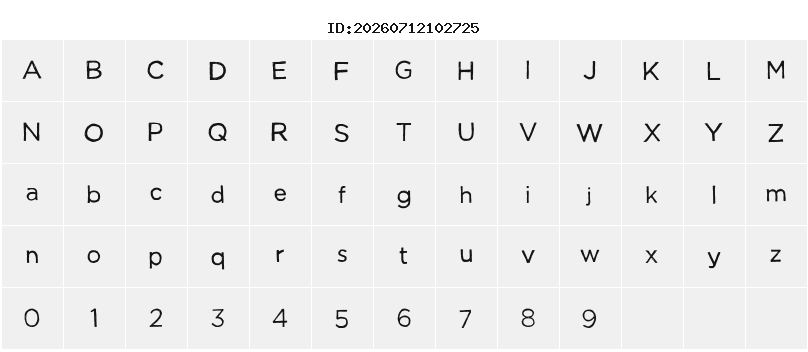
Manhattan Hand Preview
• Font Name: Manhattan Hand
• Full Font Name: Manhattan Hand Normal
About Manhattan Hand.ttf
Manhattan Hand.ttf is a modern, elegant sans-serif font designed for ultimate readability and visual harmony. Perfect for branding, headlines, web design, and print materials.